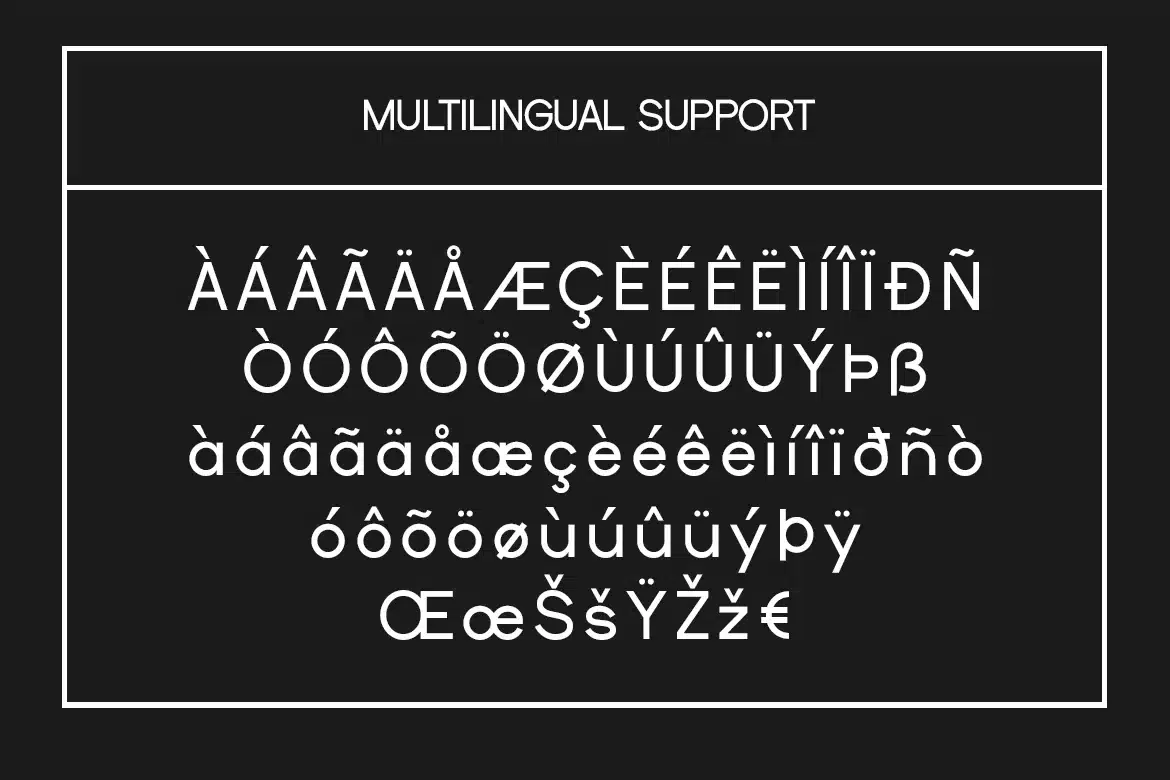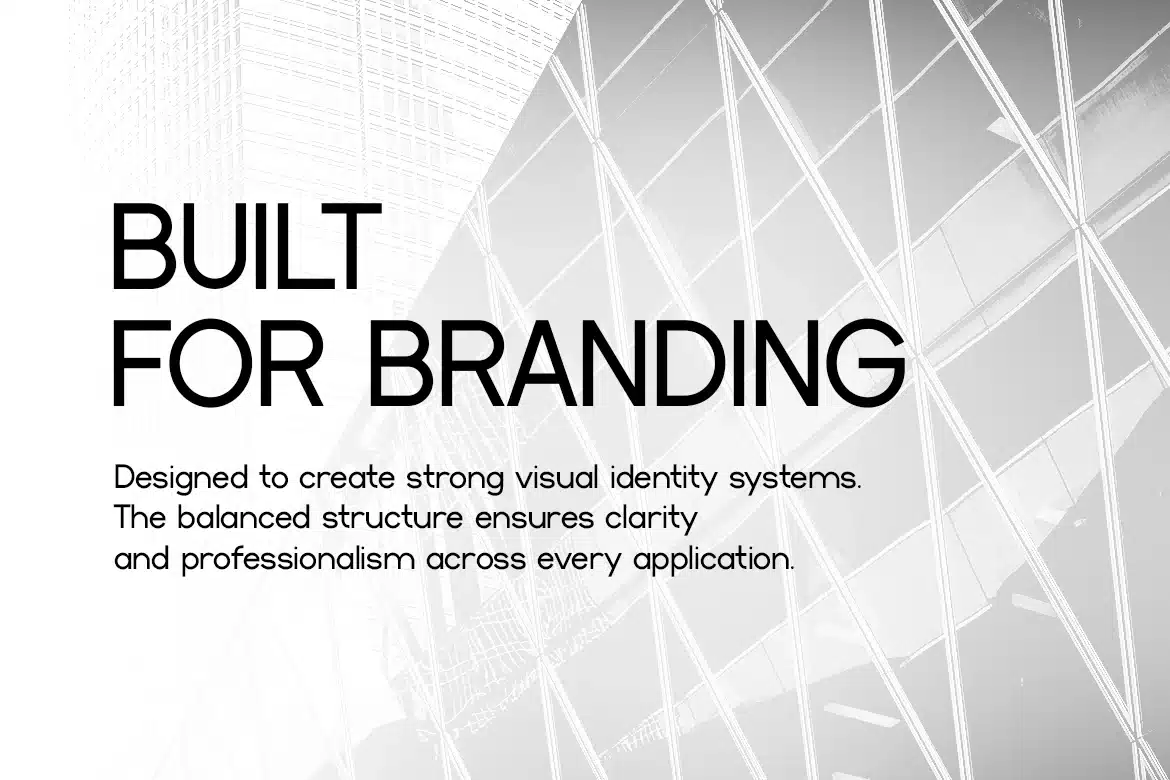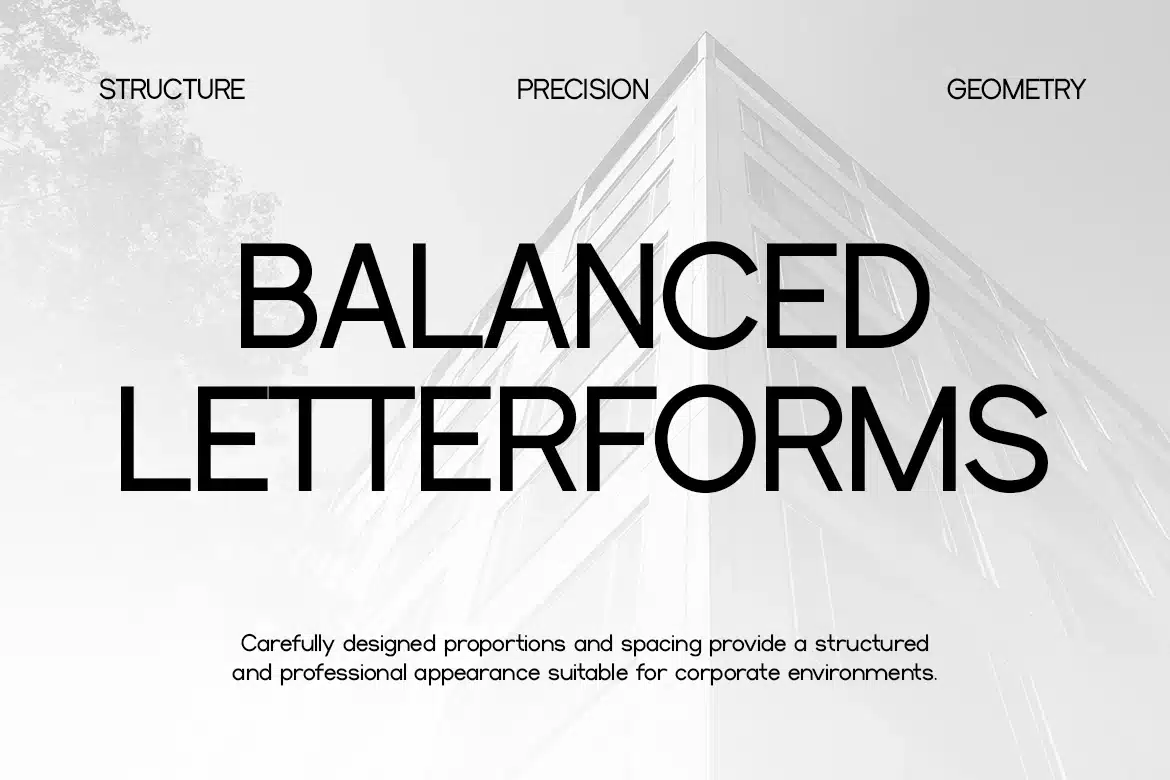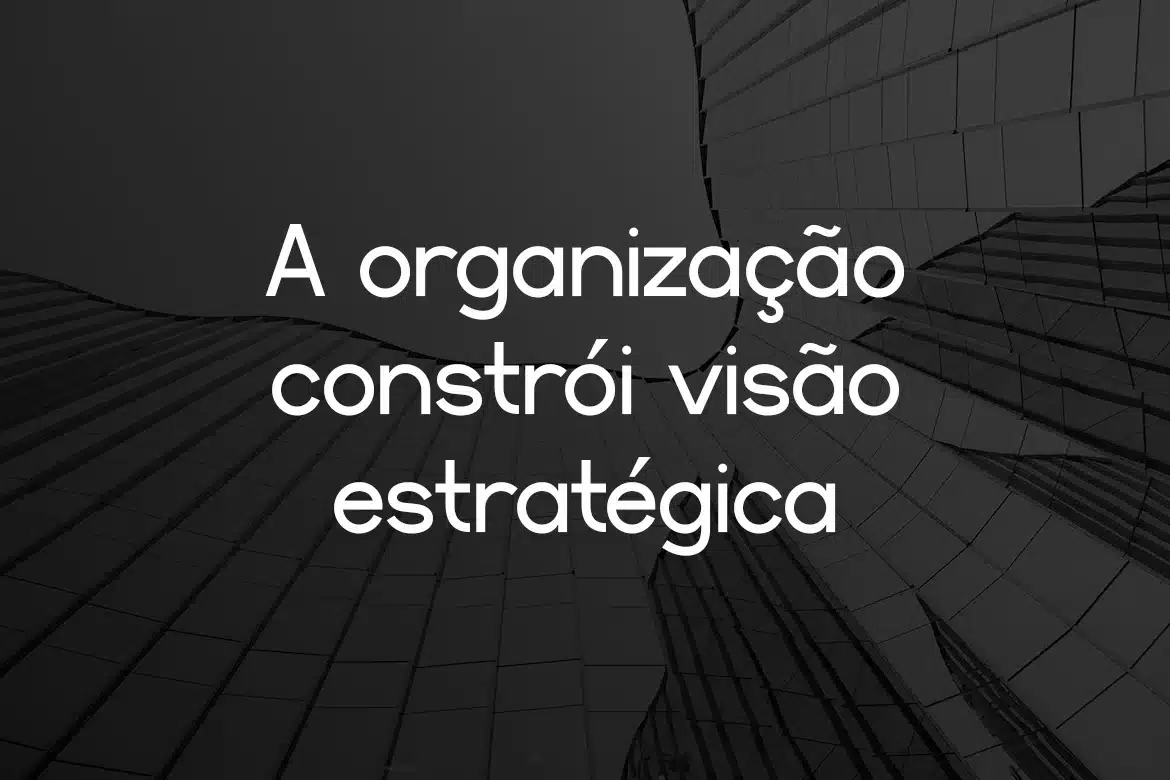
Charming – Modern Corporate Display Font
CHARMING – Modern Corporate Display Font
CHARMING is a modern corporate display typeface designed for professional branding and editorial clarity, featuring balanced geometric letterforms, clean strokes, and refined proportions that create a calm, confident visual rhythm. The letter structure blends minimal geometry with subtle contrast, giving it a polished appearance suited for contemporary brand systems.
The typeface communicates clarity, structure, and professionalism, making it an excellent choice for corporate branding, business presentations, editorial layouts, modern websites, and identity design. Its carefully balanced forms allow headlines and titles to feel strong while maintaining a sophisticated visual tone. With multilingual support for 67 languages, CHARMING is also ready for global branding projects, international publications, and cross-market communication.
In professional design environments, typography must deliver clarity, credibility, and modern structure. CHARMING helps designers build visual systems that feel clean, strategic, and confident, whether used for branding, editorial covers, corporate presentations, or digital product interfaces. Its structured letterforms create a visual voice that feels trustworthy and contemporary, making it ideal for startup brands, agency presentations, business reports, and modern editorial layouts.
Key Features :
Balanced Letterform Structure
- Carefully proportioned characters create visual harmony
- Clean geometry ensures consistent readability
Corporate Branding Ready
- Ideal for company identity systems and brand guidelines
- Works perfectly for business presentations and marketing materials
Clear Professional Voice
- Minimal structure communicates clarity and trust
- Excellent for editorial titles, magazine layouts, and digital design
Versatile Modern Style
- Suitable for branding, website headers, posters, and presentations
- Supports 67 languages, enabling global communication design